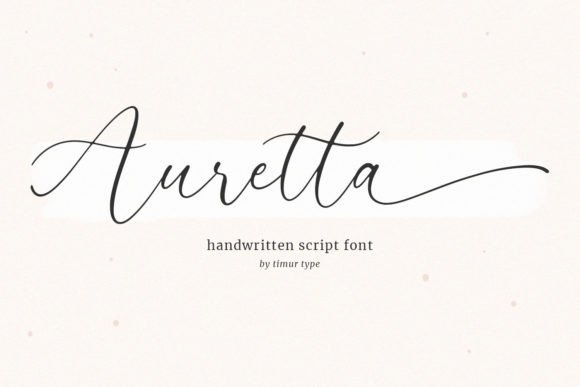
The Magic of Auretta Font: Elevate Your Designs with a Modern Handwritten Script
An Honest Review of Auretta Font
Auretta Font has quickly become one of my go-to fonts for various design projects. Here’s what I love about it:
- ✨ Modern and fresh: Auretta has a contemporary feel that’s perfect for businesses looking to establish a unique identity.
- ✅ Warm and inviting: The font’s handwritten nature gives it a cozy, personal touch that’s ideal for brands that want to connect with their audience.
- 💫 Versatile: Auretta can be used for a wide range of projects, from product packaging to social media graphics.
While Auretta is an excellent font, it’s not without its quirks:
- 🤔 Limited use in body text: Due to its script nature, Auretta might not be the best choice for lengthy body text. It’s better suited for headings, titles, or short paragraphs.
- ⚠️ Requires attention to spacing: As with any script font, it’s essential to adjust the spacing to ensure that the text flows smoothly.
The Story Behind Auretta Font
Auretta Font was designed with the intention of creating a modern, yet approachable script font. The designer aimed to craft a font that would be both elegant and friendly, making it perfect for businesses that want to connect with their audience on a personal level. While the designer’s background and inspiration might be shrouded in mystery, one thing is clear: Auretta Font has become a valuable asset for designers and crafters alike.
| Font Name | Auretta Font |
| Author | Timur type |
| What type of projects is Auretta Font best suited for? | Auretta Font is perfect for product packaging, branding projects, magazines, social media graphics, weddings, and more. |